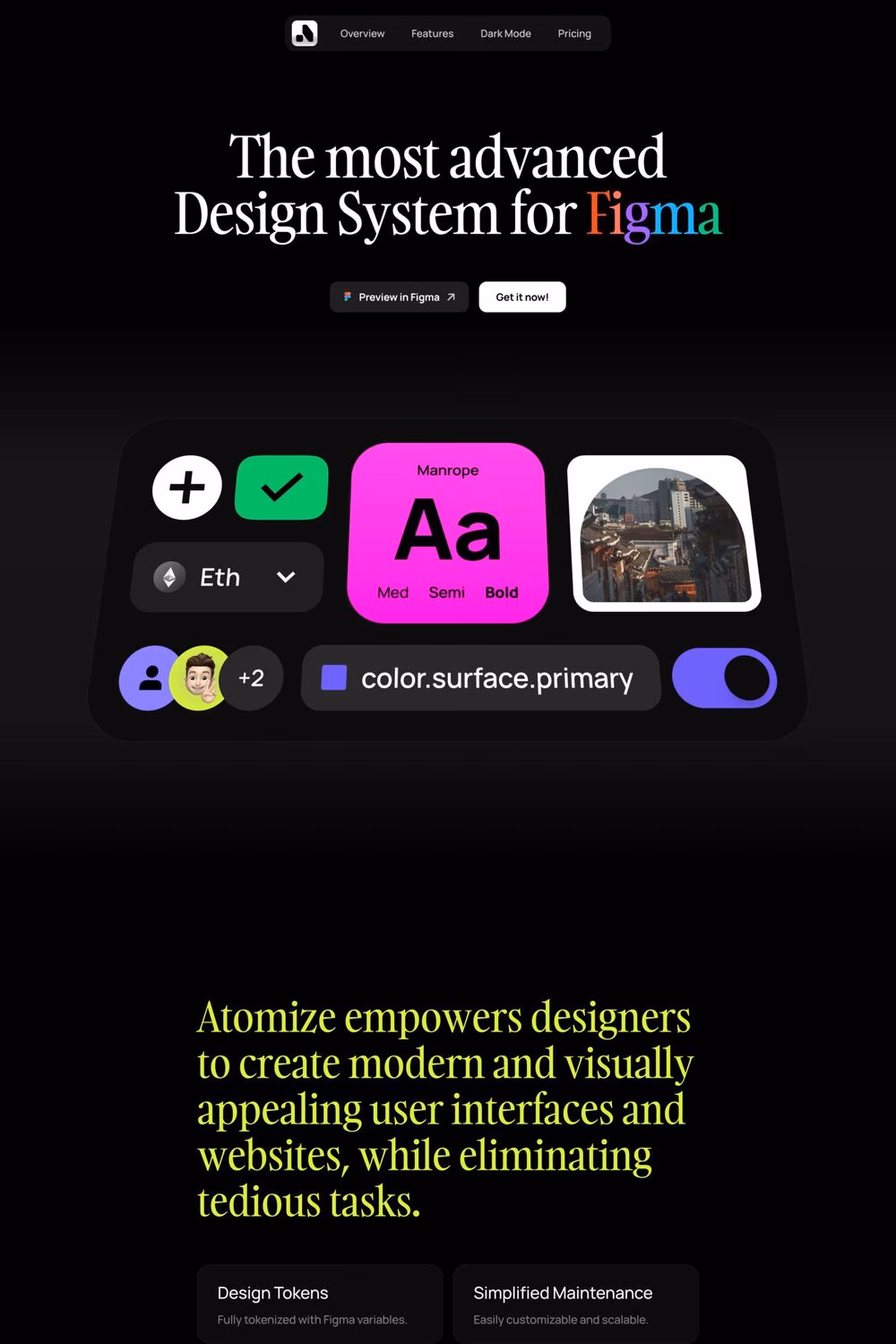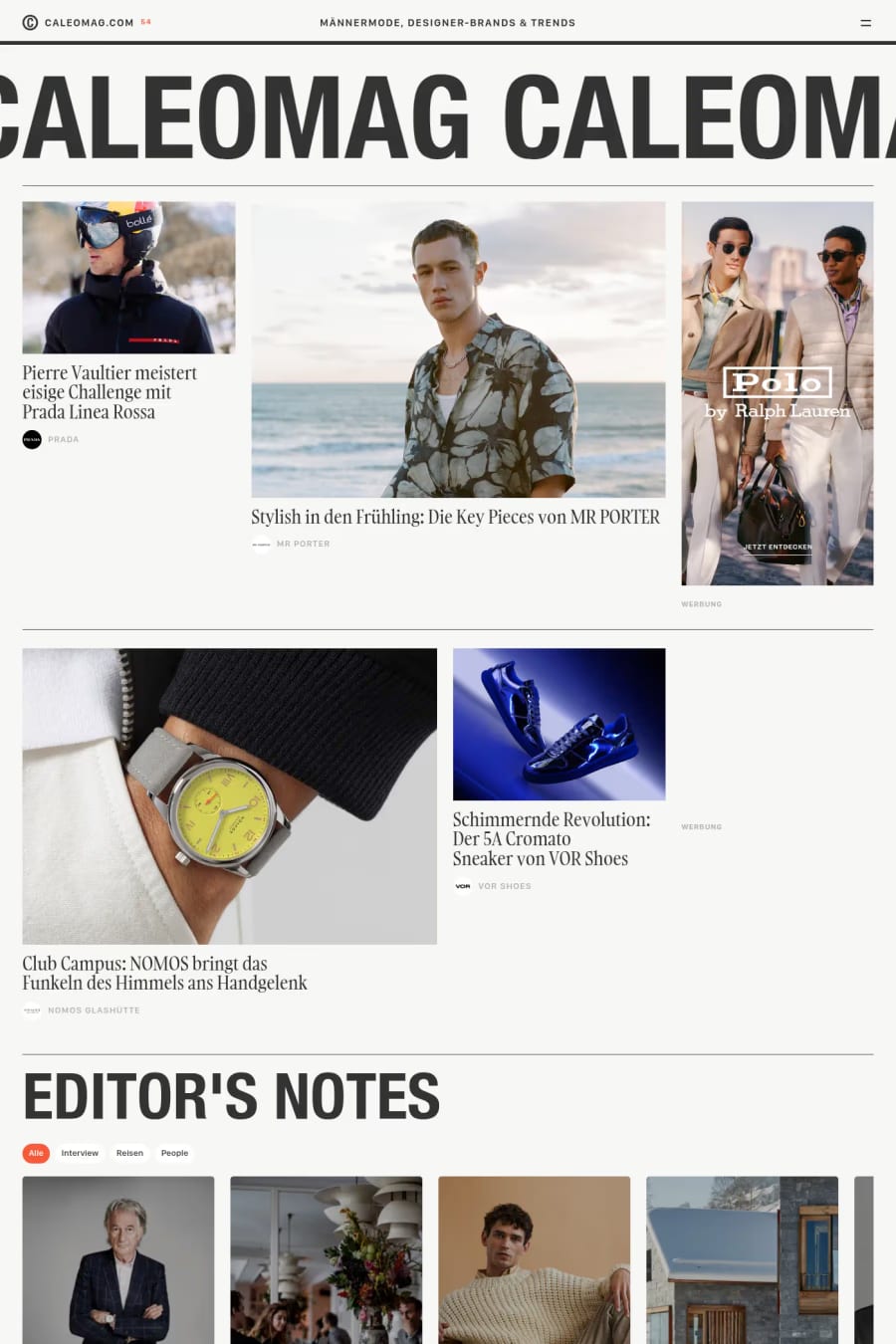
Gambarino is a serif typeface from Indian Type Foundry.
Gambarino is a condensed, single-weight serif face for headlines. The font is designed by Théo Guillard. Stylistically, you could call it a post-modern interpretation of the Garalde genre. Gambarino is different enough from most serif typefaces designed for text that you could combine it with another Garalde easily; that other font would set the body text, while Gambarino would shine in the headlines.